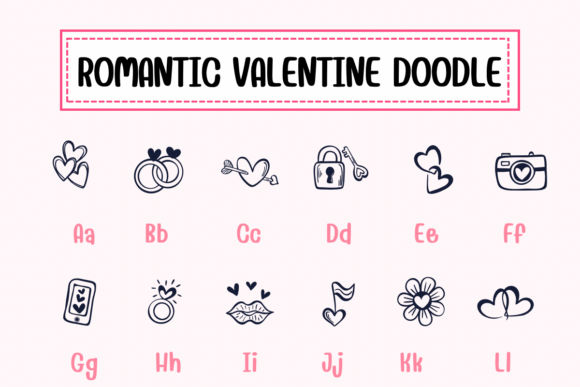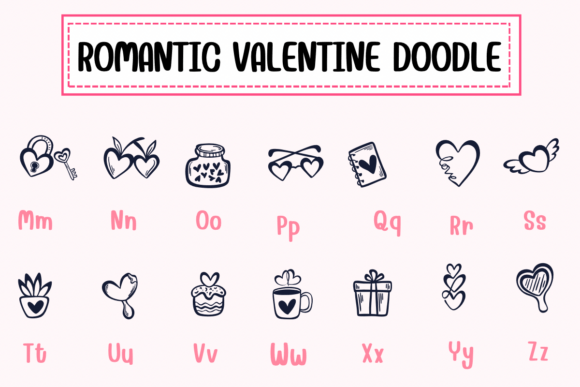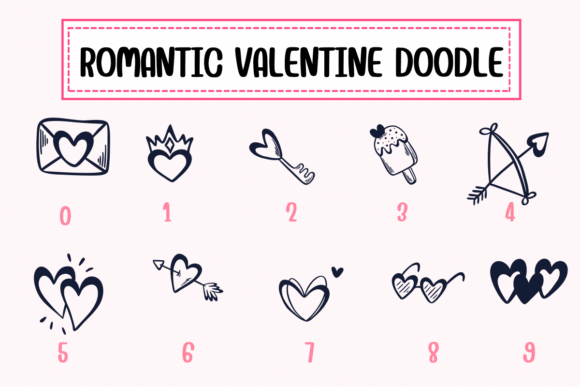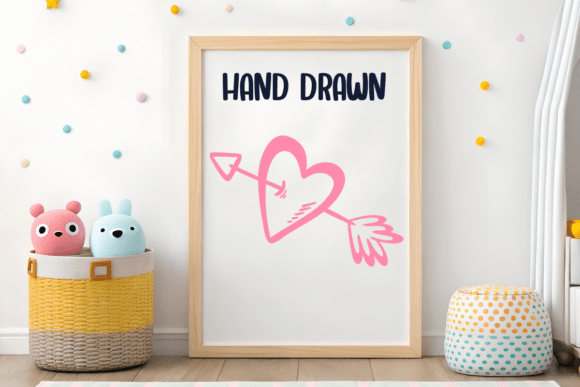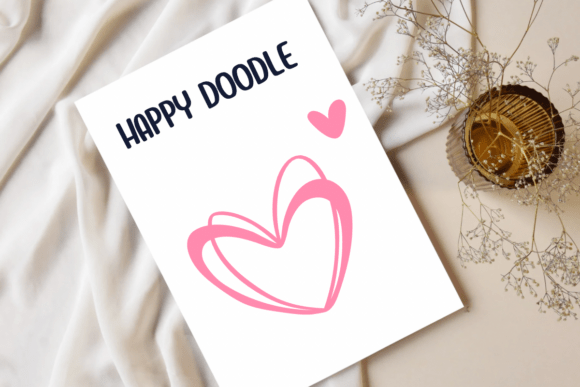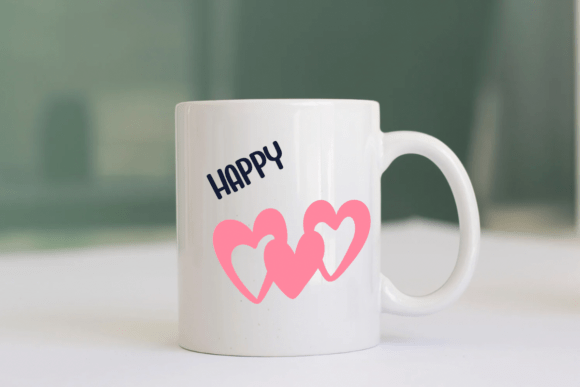
Introduction to Romantic Valentine Doodle Font
Romantic valentine doodle is a dingbats font with theme with a sketch style.
This font can enhance your creative projects such as wedding invitations, DIY, crafts, decorations, logos, and many other creative ideas .
Key Features of Romantic Valentine Doodle Font